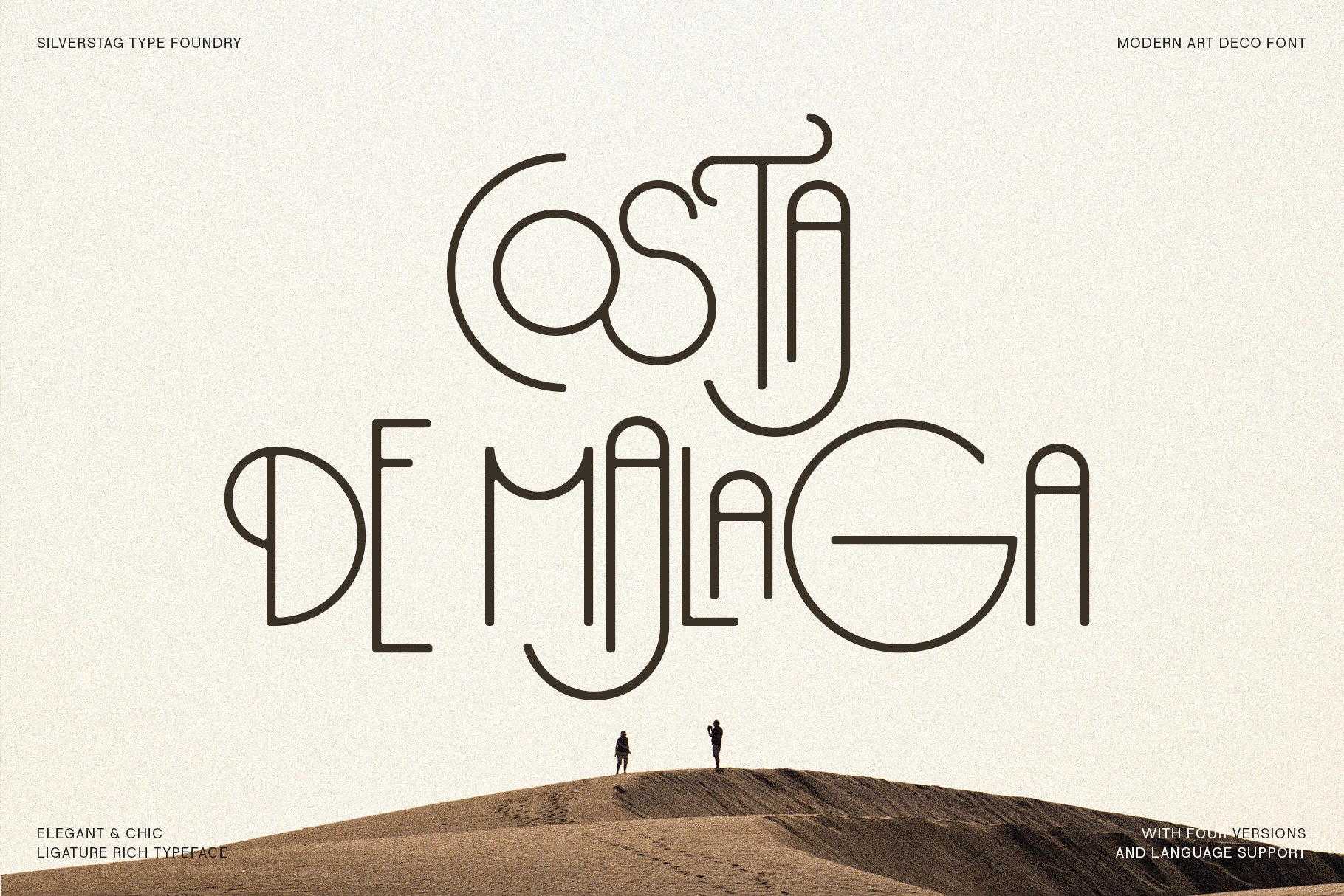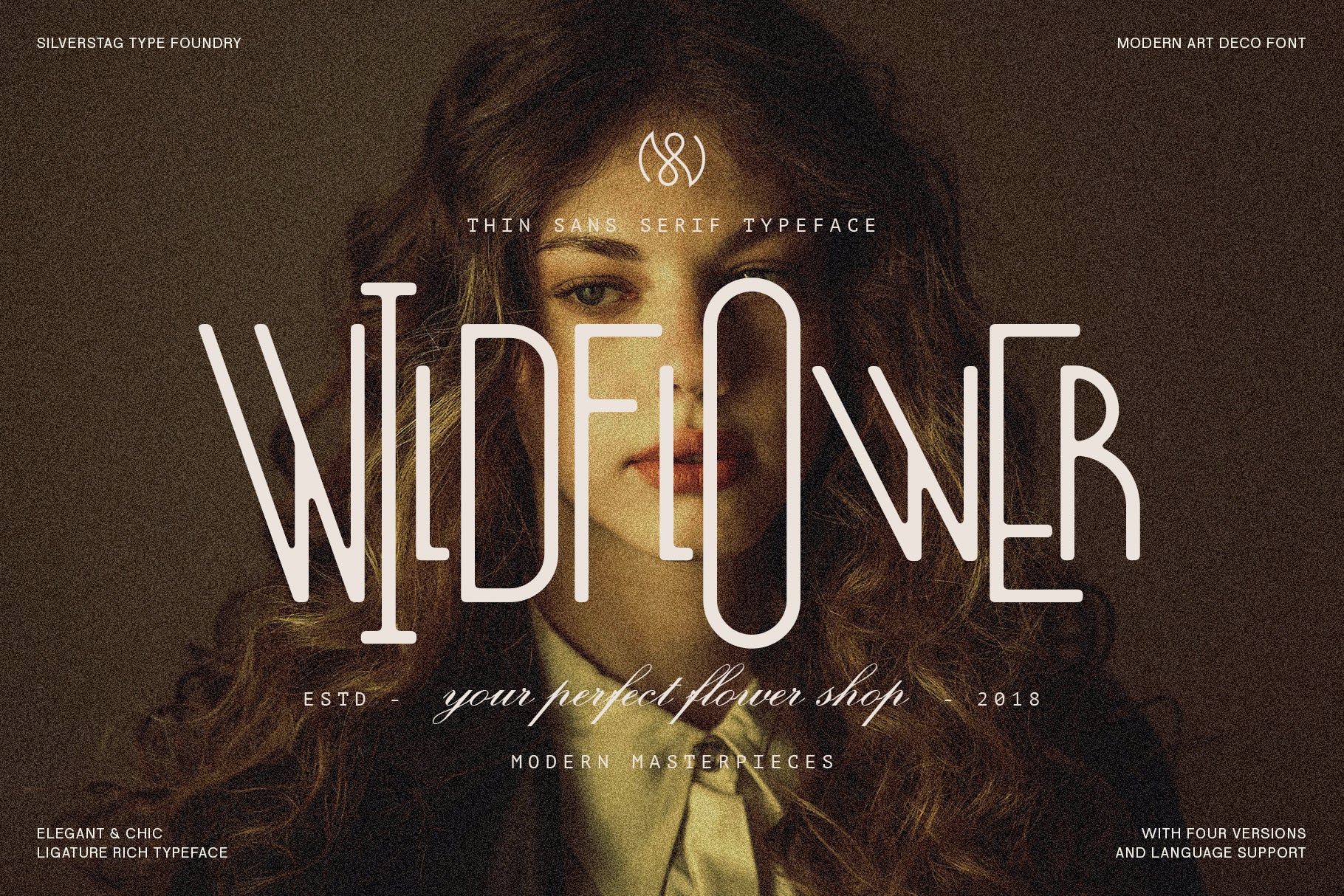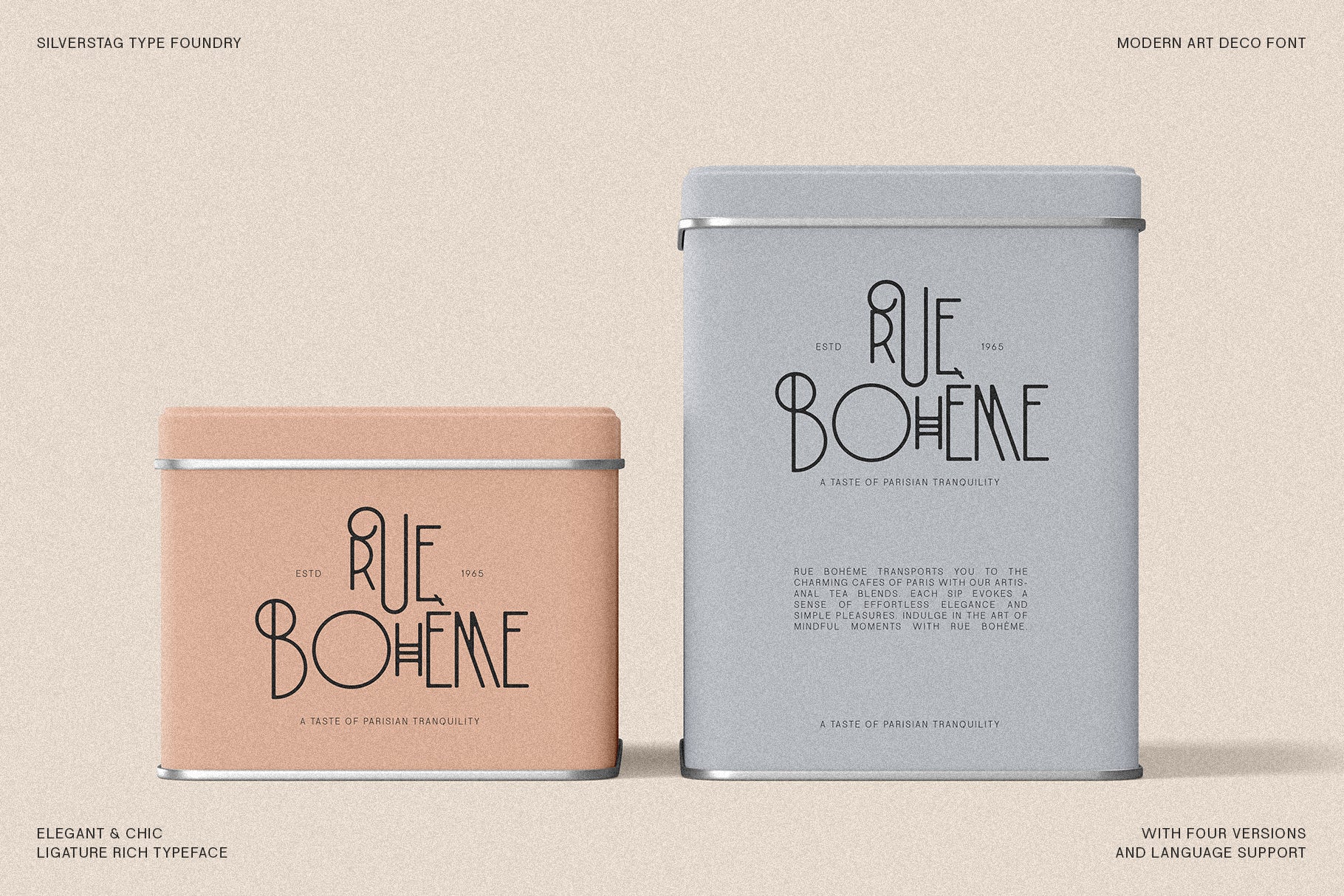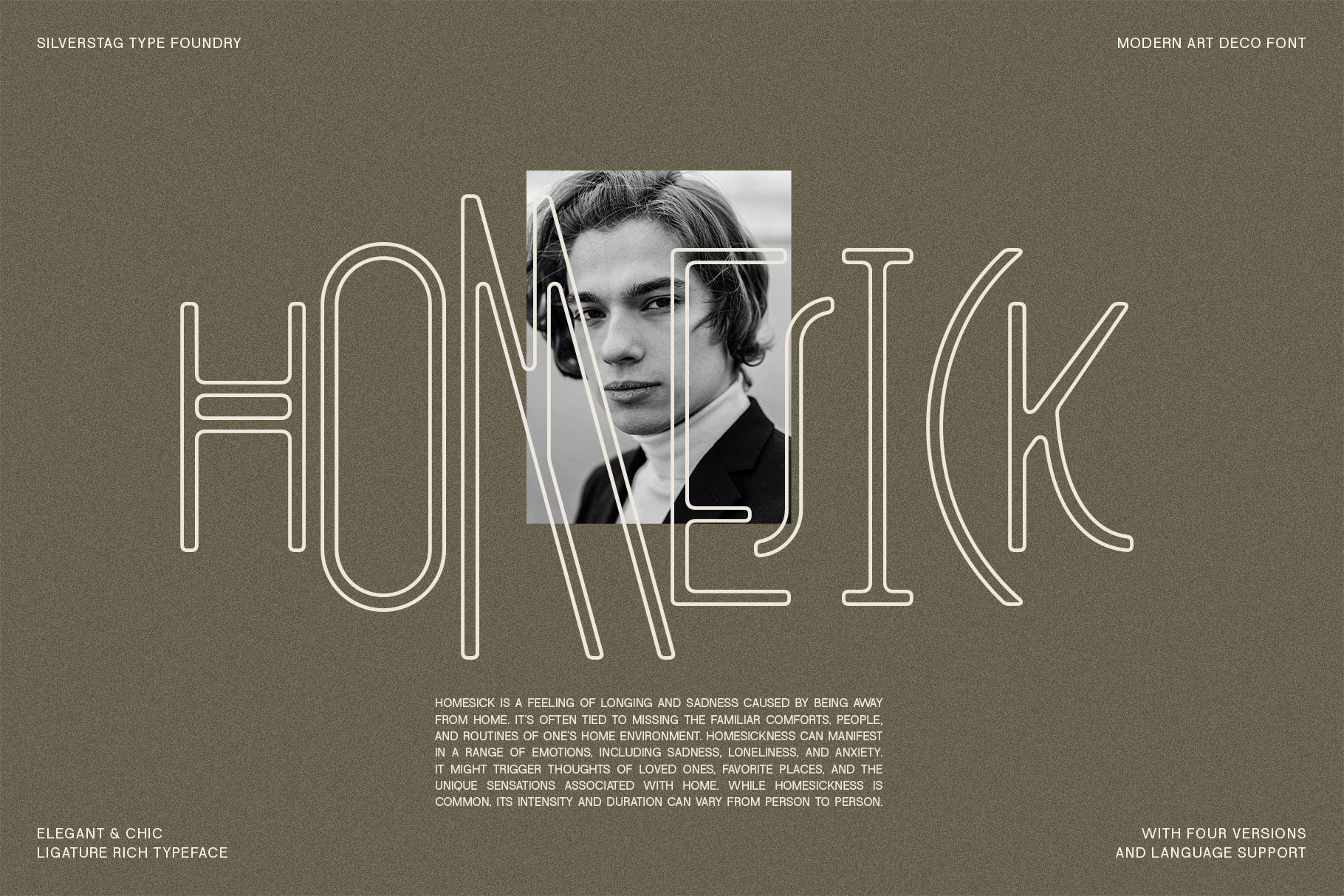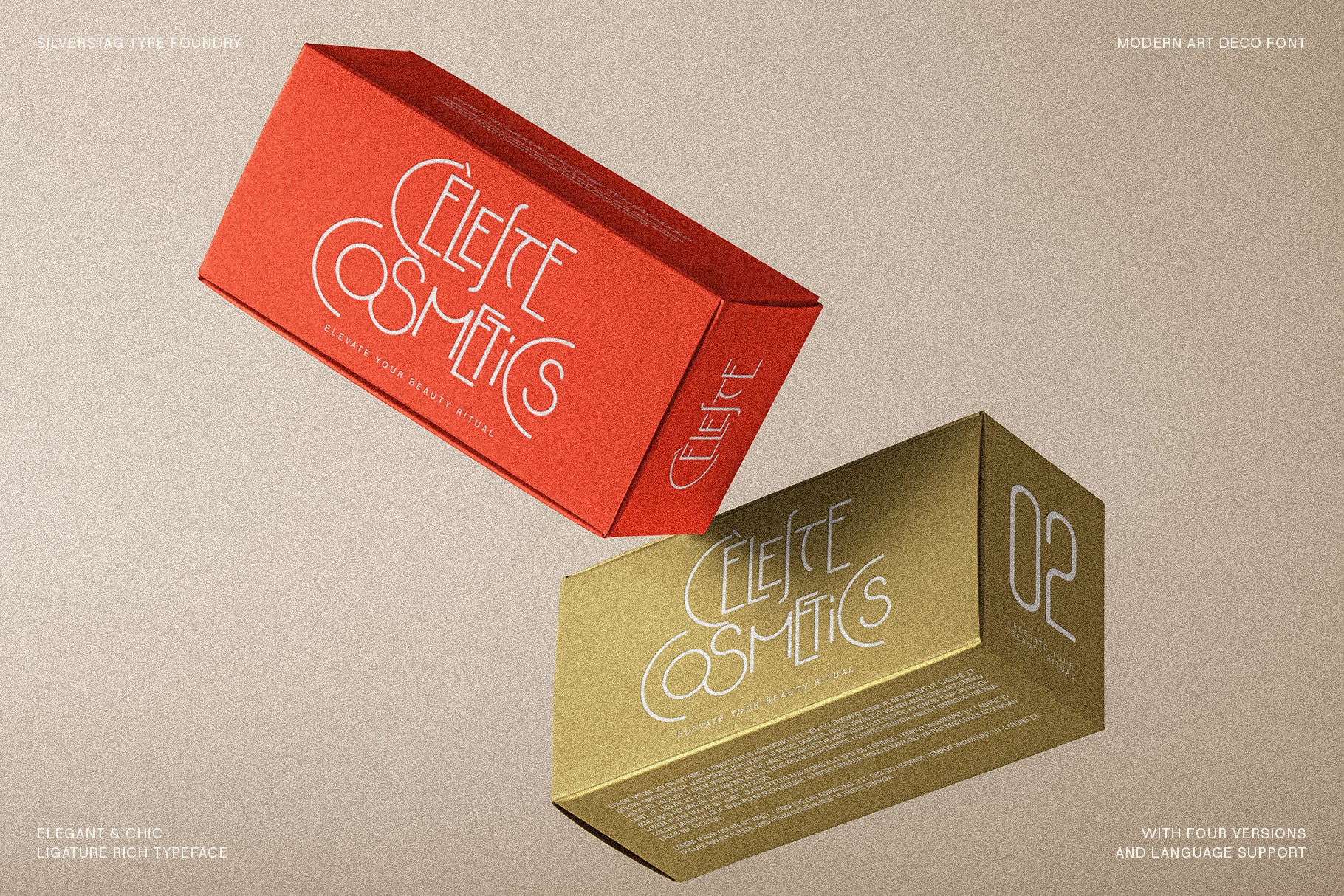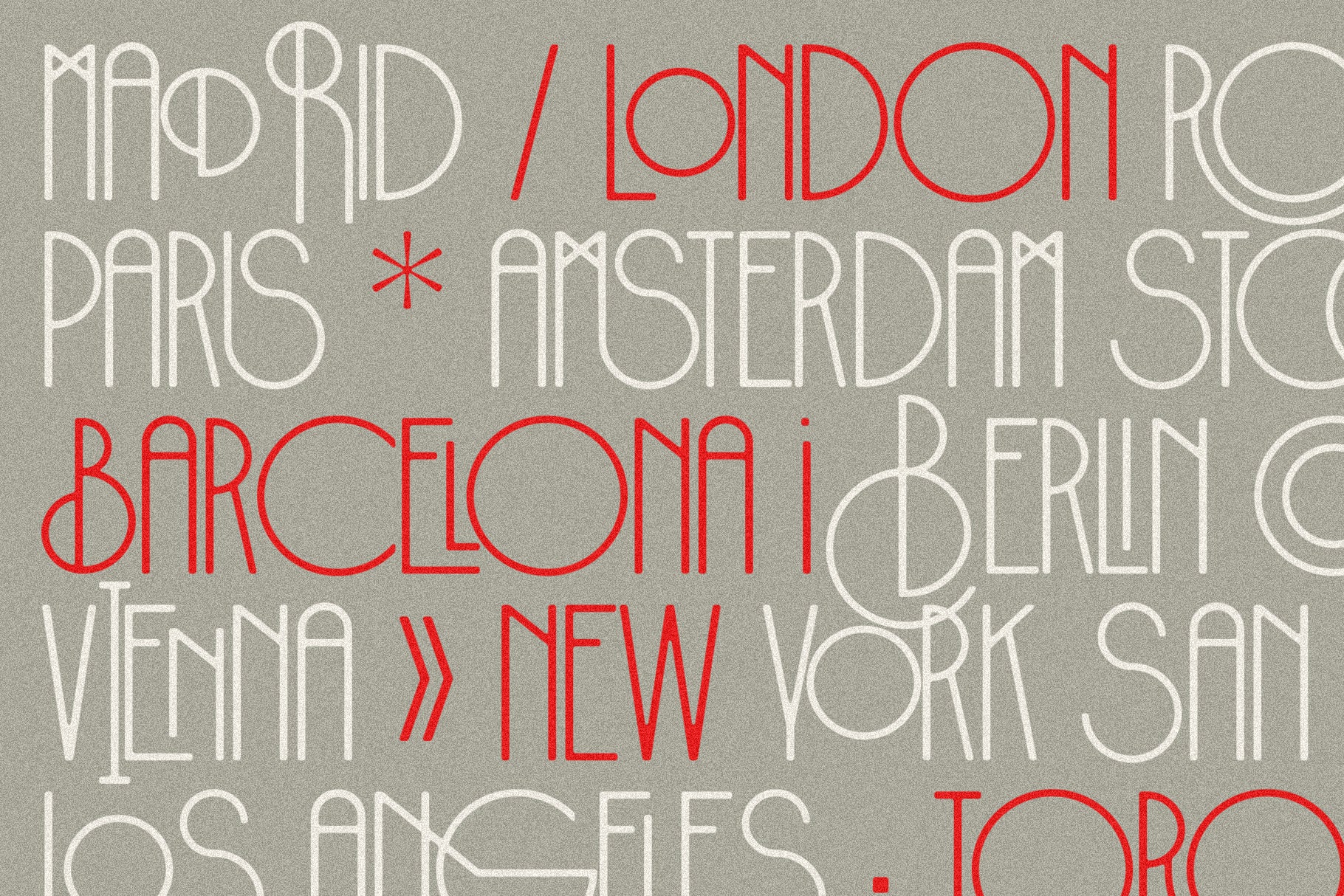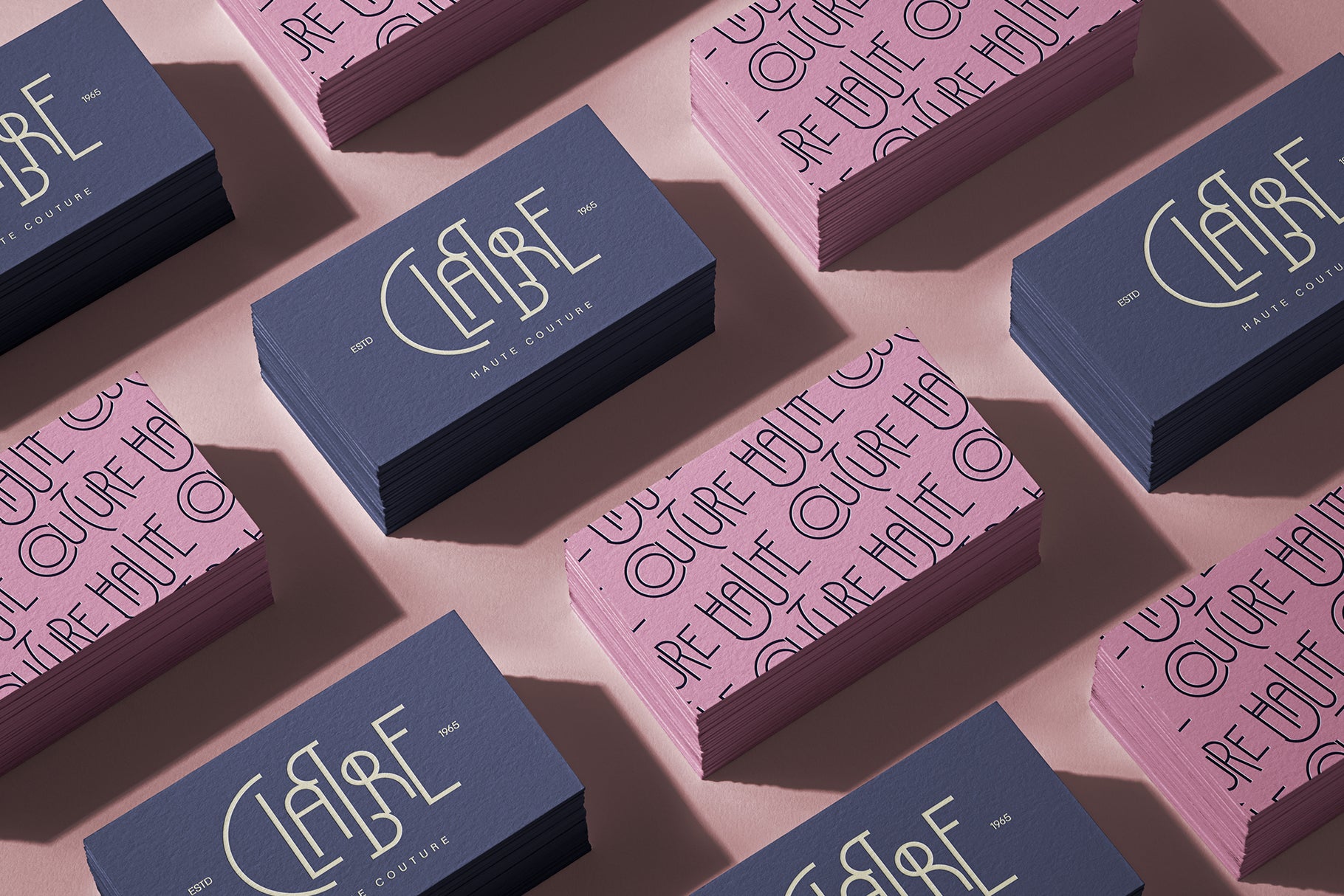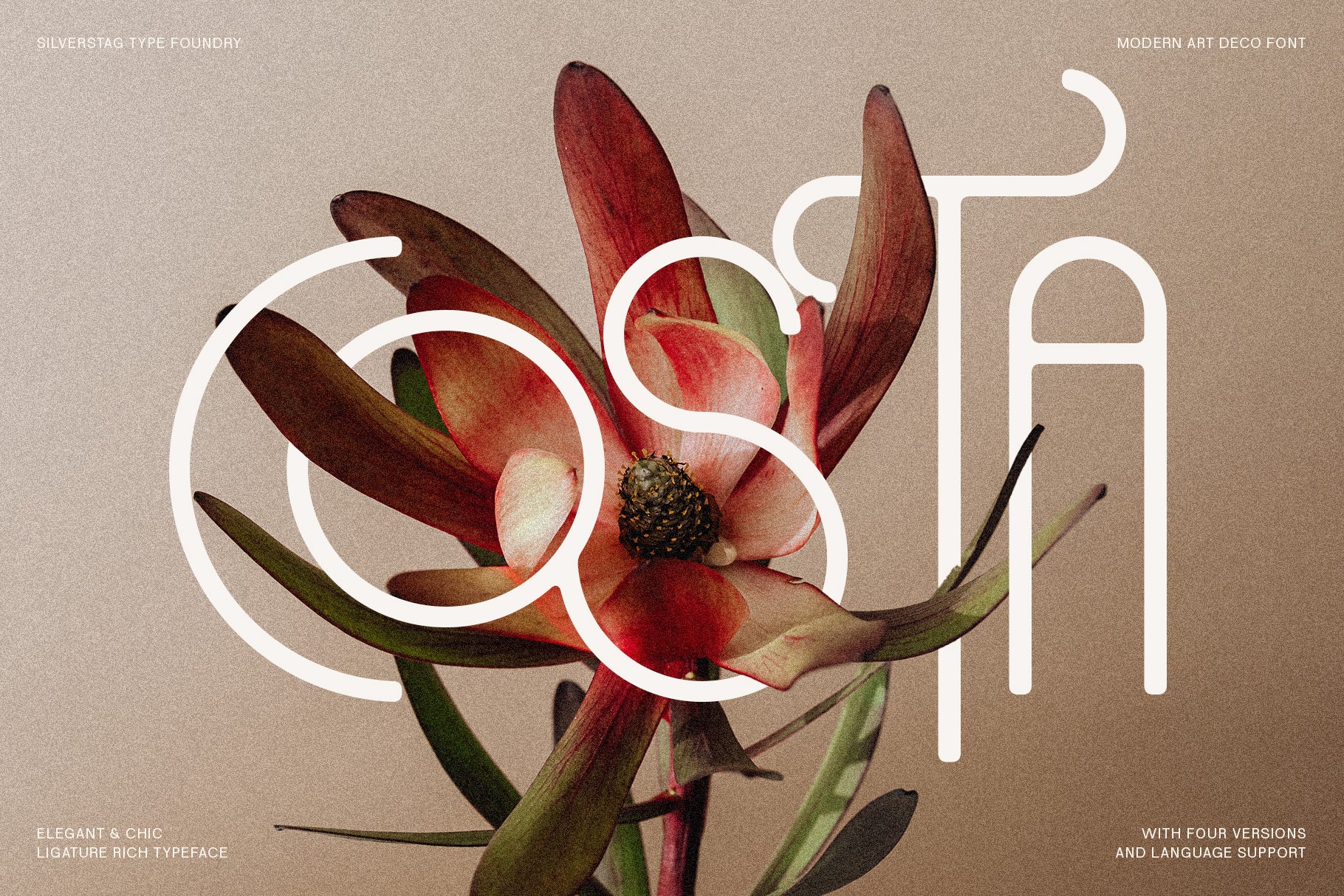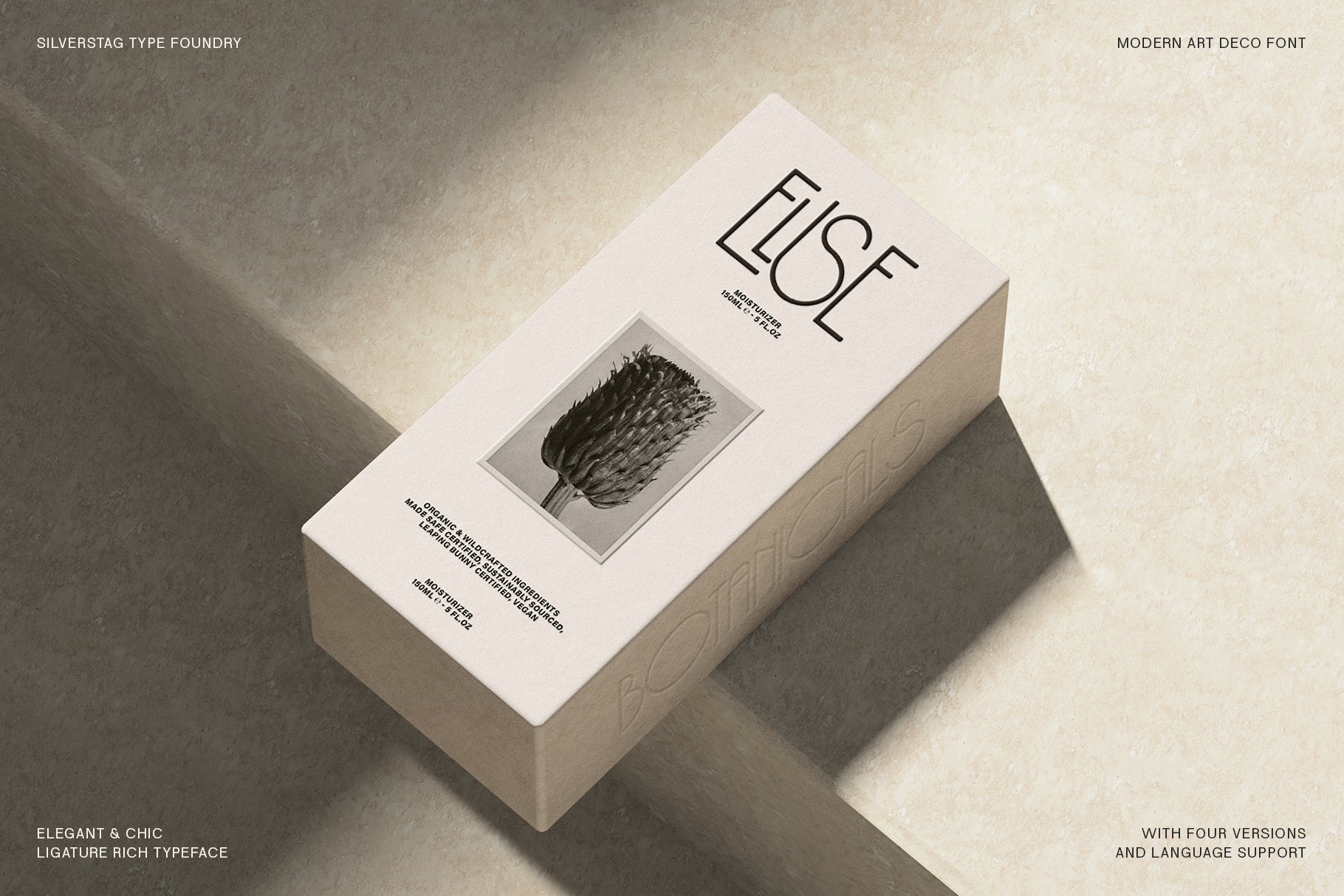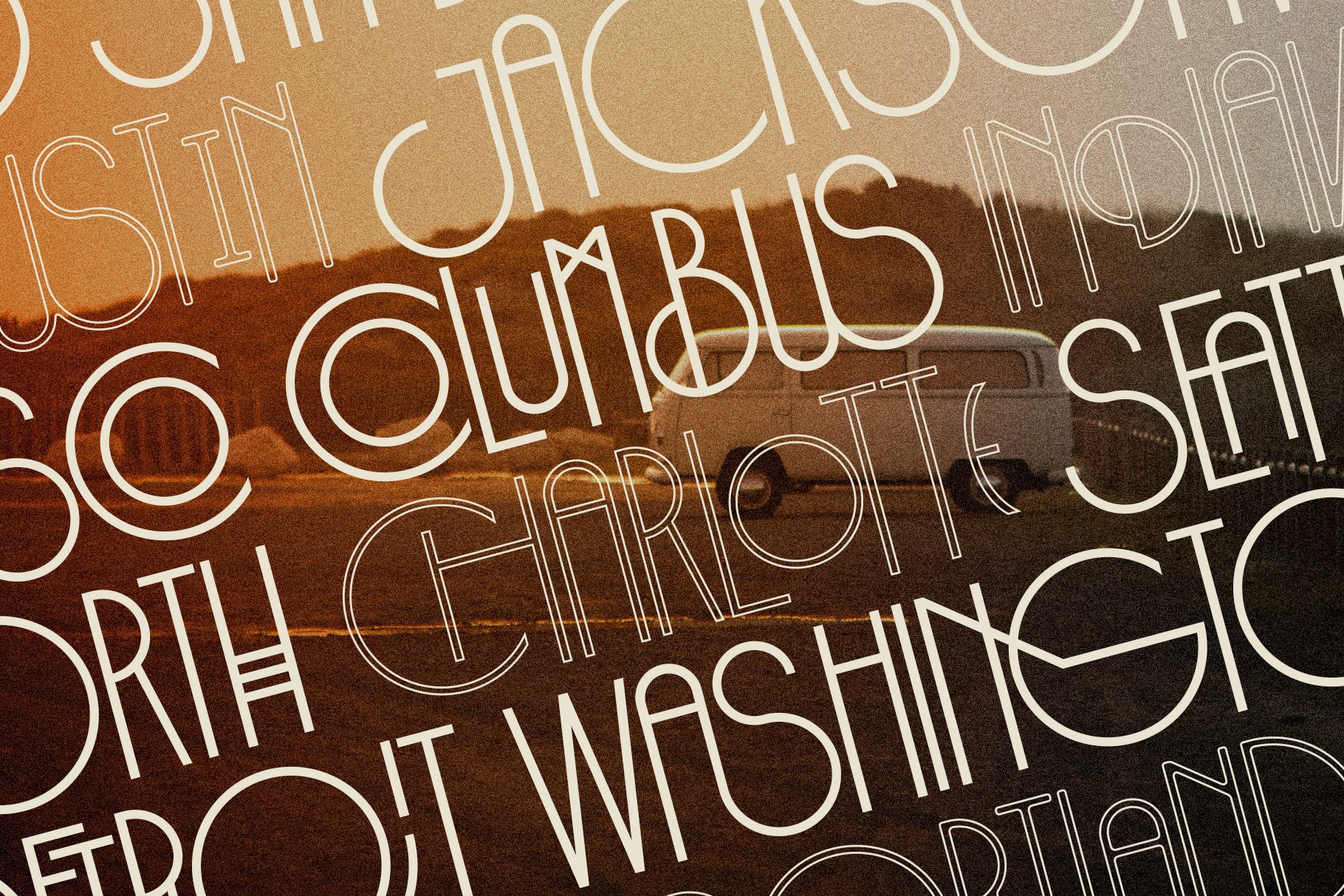
Costa de Malaga is a refined Art Deco-inspired font designed to bring elegance, precision, and creative control to your typography. With 95 ligatures, 260 stylistic alternates, and 12 letter variants per character, this typeface offers unparalleled flexibility for custom, sophisticated design.
The font features four distinct styles—Regular, Regular Outline, Rounded, and Rounded Outline—allowing you to adapt your typography to any creative mood or layout. Whether you’re designing luxury branding, editorial spreads, high-end packaging, invitations, or standout display work, Costa de Malaga brings timeless charm and modern structure to every letter.
Its geometric forms, vertical emphasis, and subtle flourishes reflect the spirit of classic Art Deco while remaining fresh and usable in contemporary design. And with support for 90+ languages, Costa de Malaga is ready to elevate global projects with sophistication and style.